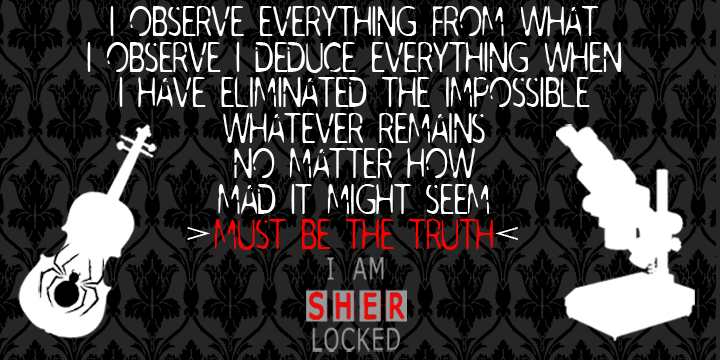
Preview and download I Am Sherlocked Font. Created by SpideRaYsfoNtS in Fancy Eroded styles with Free for personal use license.
Created to pay homage to the excellent BBC series SHERLOCK.....The password on Idler's phone is S.H.E.R and, with the background, it reads "I AM SHER LOCKED" (I am Sherlocked) like "I'm into Sherlock" or "Sherlock conquered my heart". Sherlock cracks the password exactly because she said that her phone is her life and he deduces that it's her heart. For the fully kerned OTF embeddable commercial version of this font please visit my Etsy Store @ http://etsy.me/2eGLGMM |